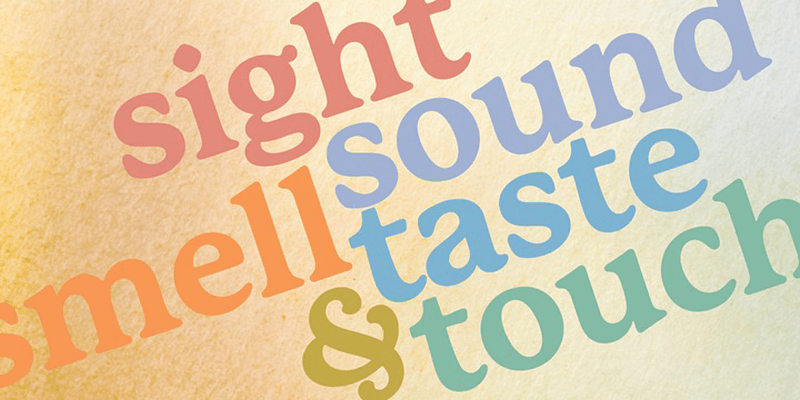
P22 Mackinac specimen
P22 Mackinac
P22 Mackinac Pro is a general-purpose, utilitarian family incorporating loads of OpenType features. Versatile for text and display uses; including advertising, publishing, signage and packaging.